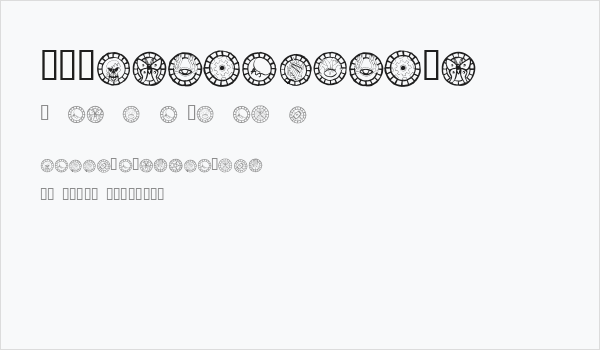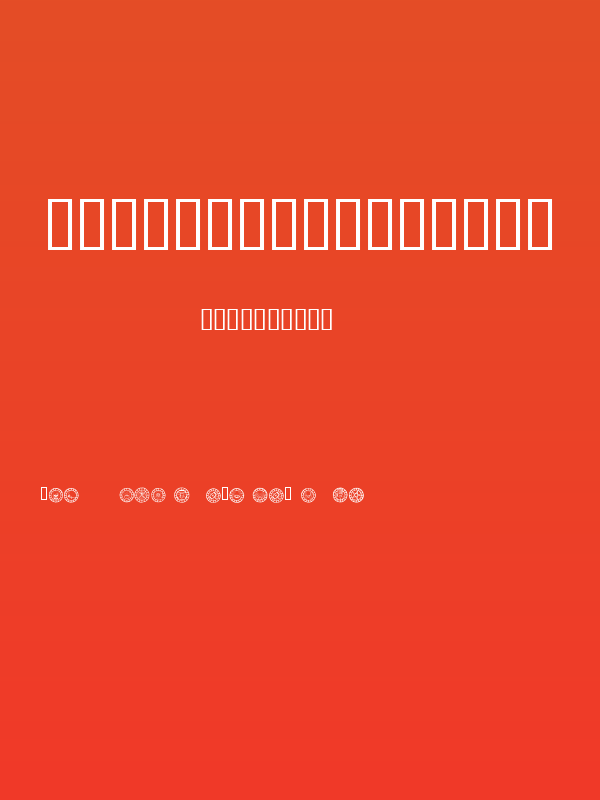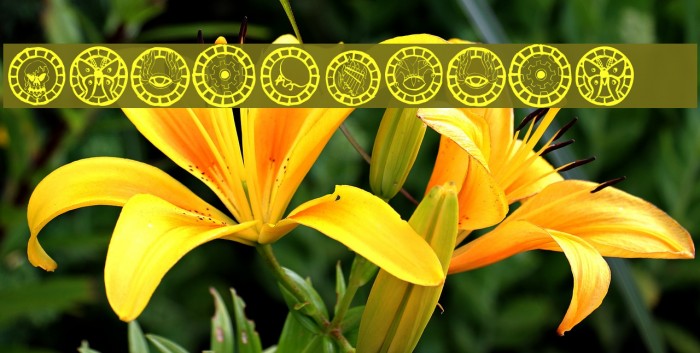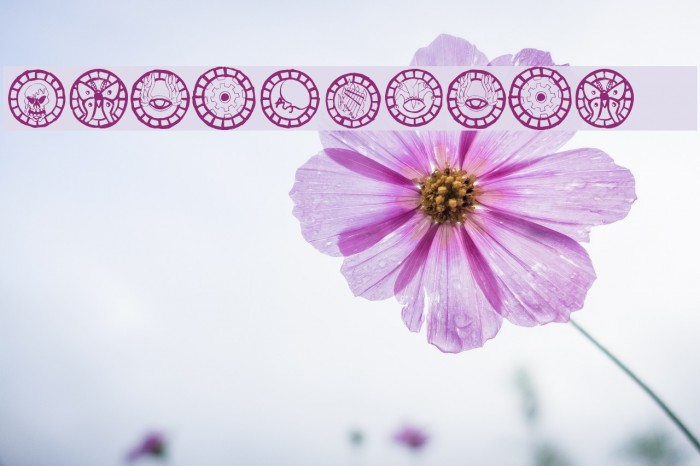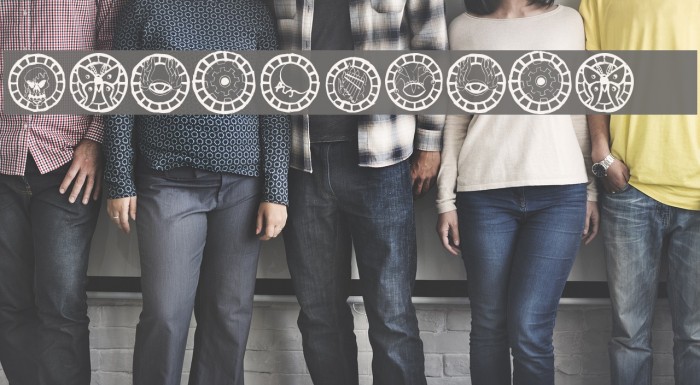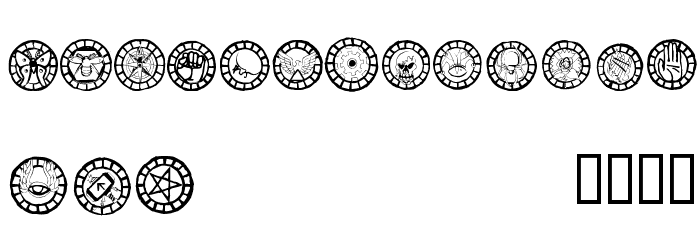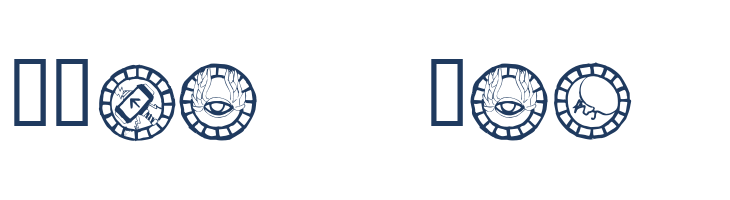
WWChangelingBats Font
A decorative dingbat font featuring circular, coin-like symbols with intricate, fantasy-inspired illustrations inside each glyph. The designs include various mythical motifs and geometric patterns, giving a whimsical and magical appearance.
| Overall Style | Decorative, Fantasy, Whimsical |
| Use Case | Logos, Decorative elements, Themed graphics |
| Proposed Projects | Tabletop RPG materials, fantasy book covers, magical invitations, themed event posters, game UI elements. |